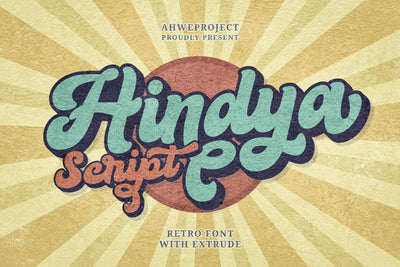
Hindya - Retro Bold Handwritten Font
Hindya is a bold and retro styled handwritten font. This font reads as strong, confident, and dynamic and can add tons of nostalgic character to your designs. Hindya is PUA encoded which means you can access all of the glyphs and swashes with ease!